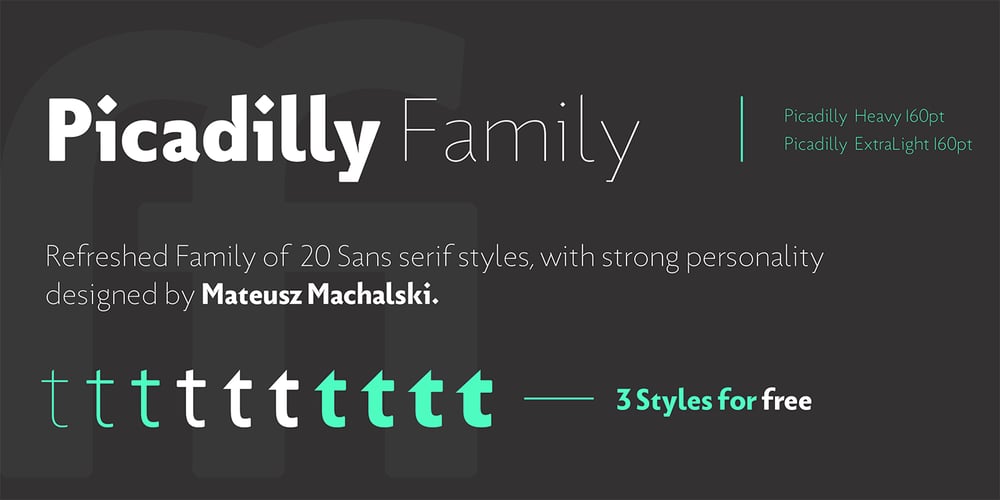
Picadilly
Picadilly font
Picadilly Font Family was designed by Mateusz Machalski and published by Machalski. Picadilly contains 20 styles and family package options. Picadilly family was made after my short visit in London and huge impression of Edward Johnston works. I’ve designed family of 20 modern typefaces with strong personality.